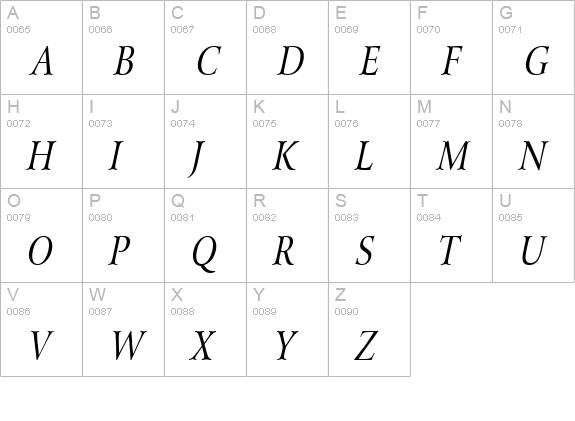
Array-Condensed Italic Font Details
Array-Condensed Italic is a distinctive, condensed-width, italic variant in the Array typeface family \xE2\x80\x94 well suited to design and typography projects.
Array-Condensed Italic font is a sleek and modern typeface that exudes elegance and style. Its condensed design allows for efficient use of space while maintaining readability and sophistication. The italicized letters add a touch of flair and creativity to any project, making it perfect for headings, titles, and quotes. This font is available for free download at FontsMarket.com, where you can easily access and incorporate it into your design projects. Whether you're working on a website, poster, or branding materials, Array-Condensed Italic font will elevate your content and make a lasting impression. Don't miss out on this opportunity to enhance your typography with this stunning and versatile typeface.